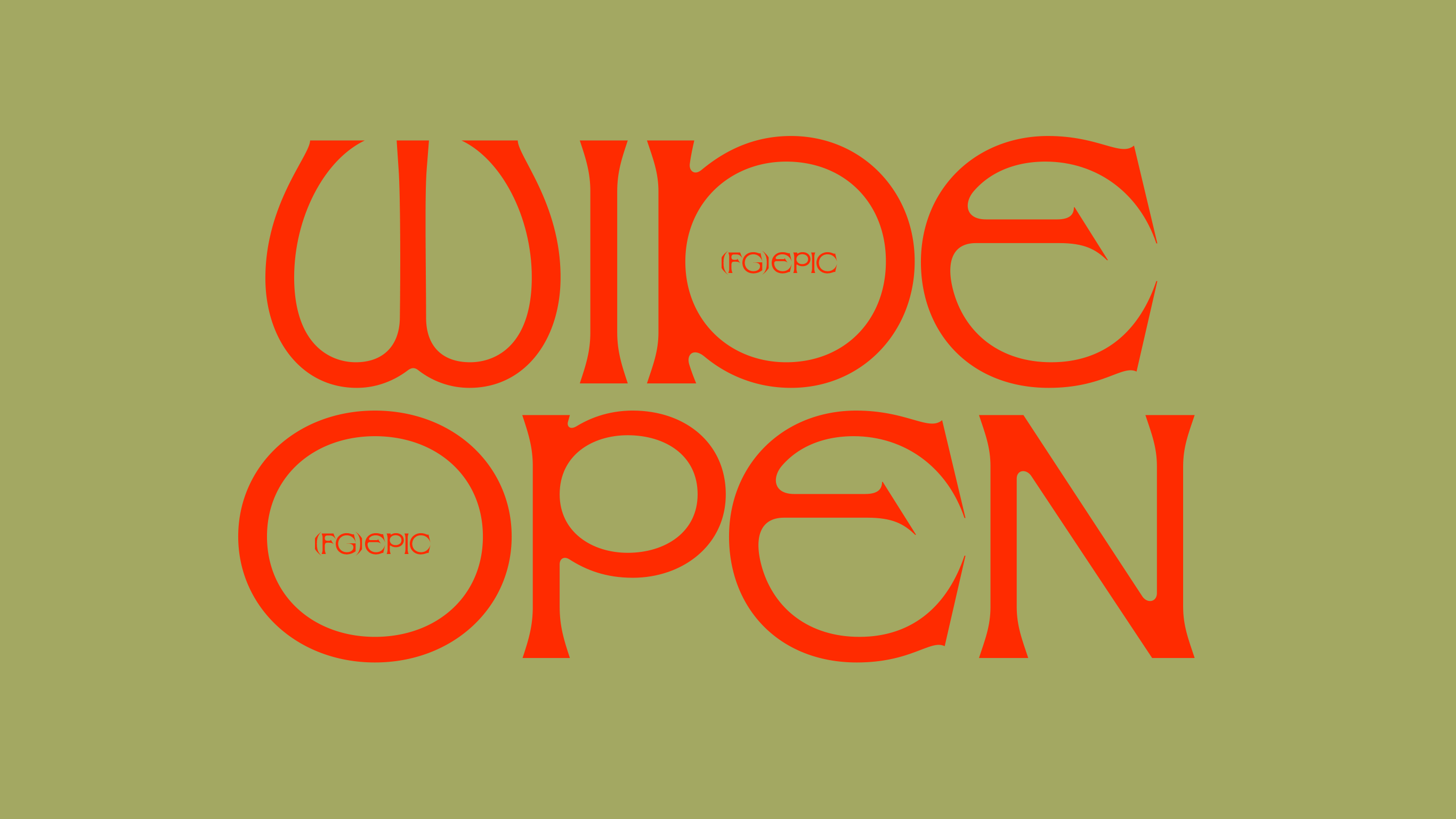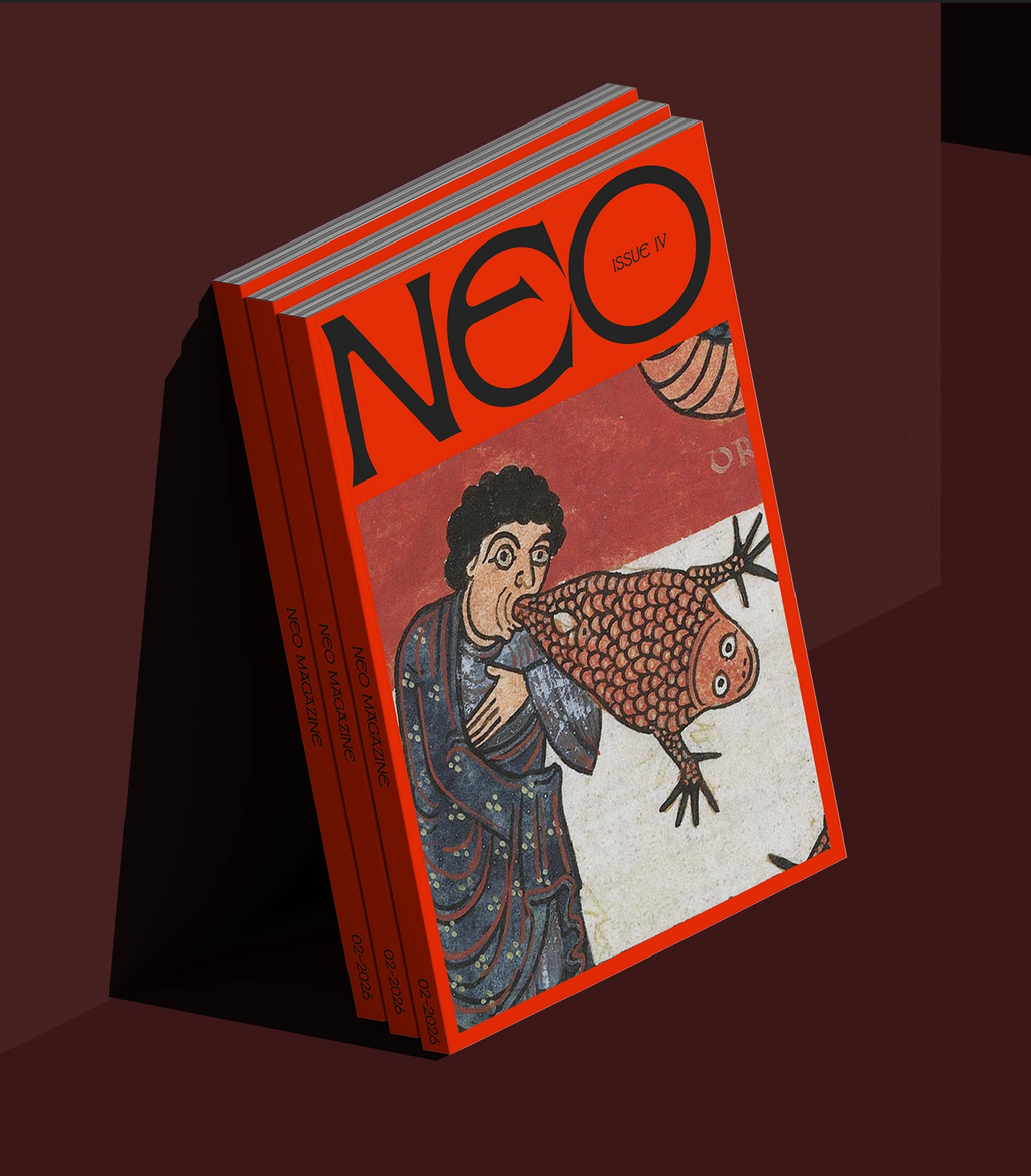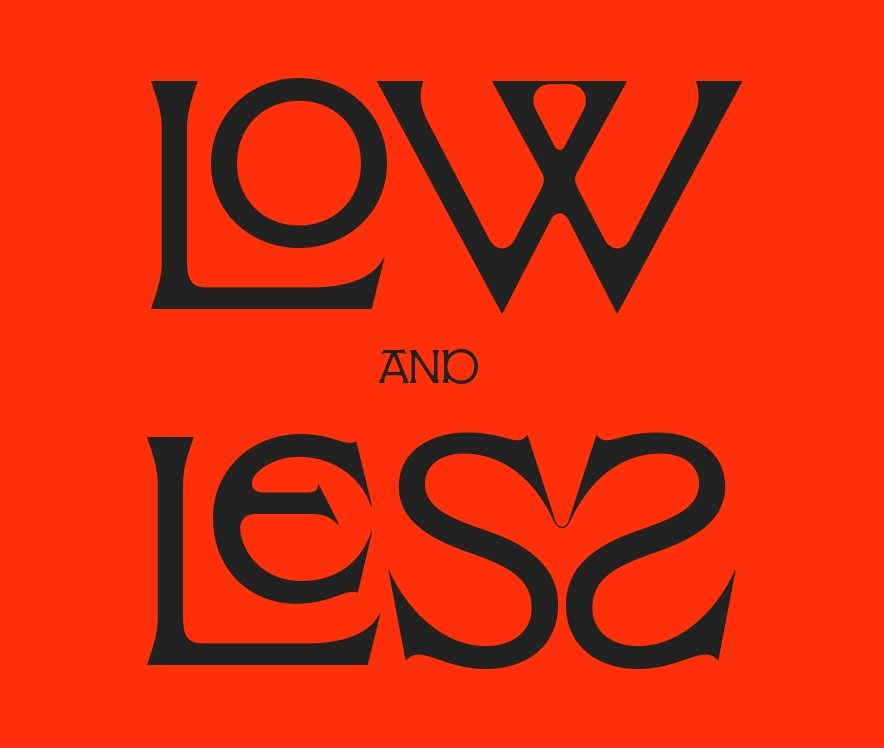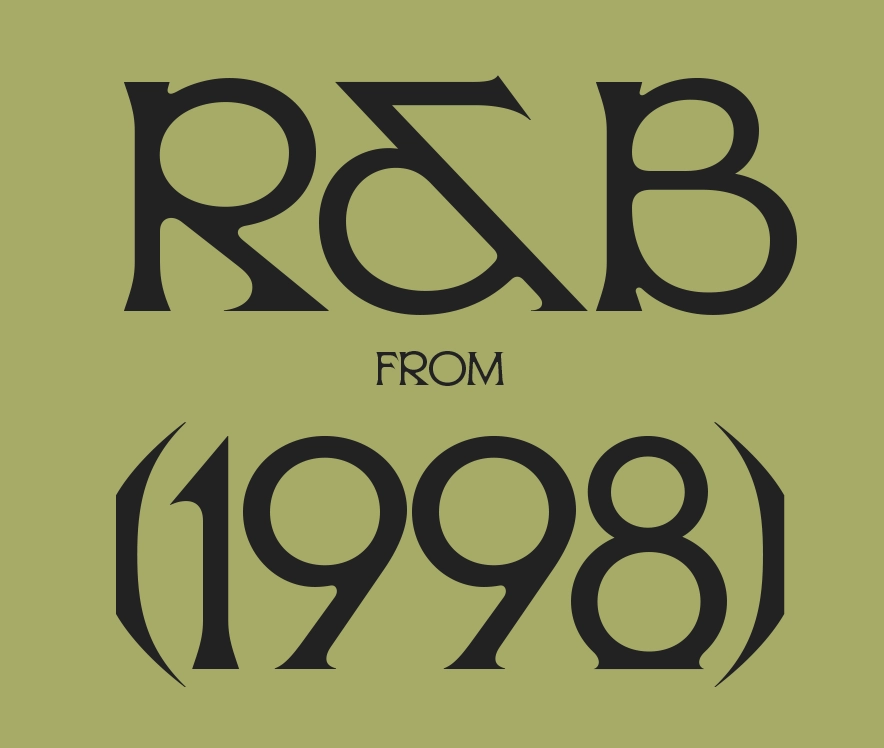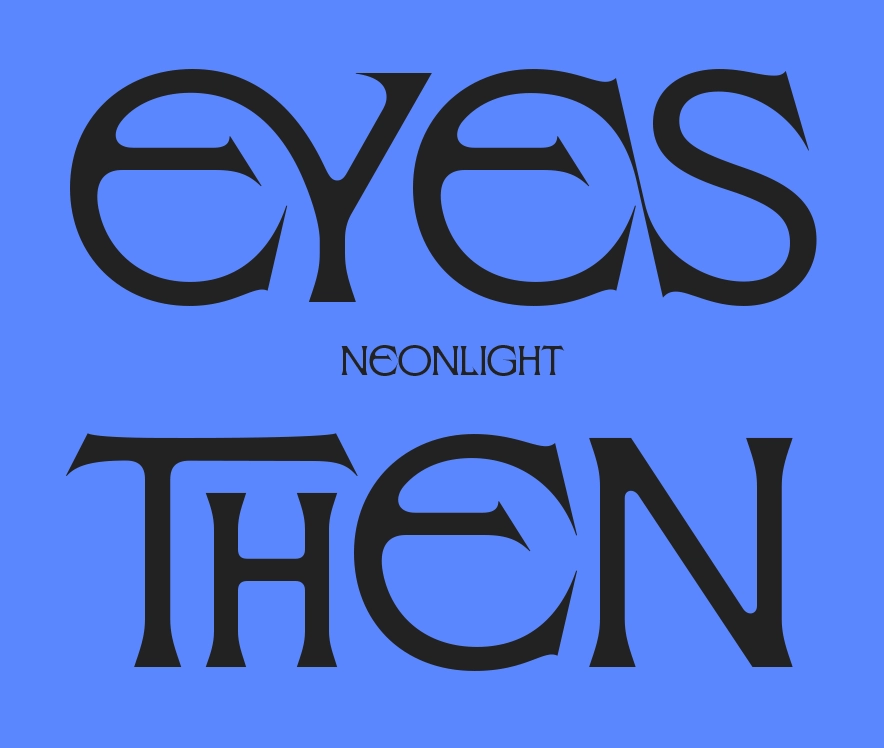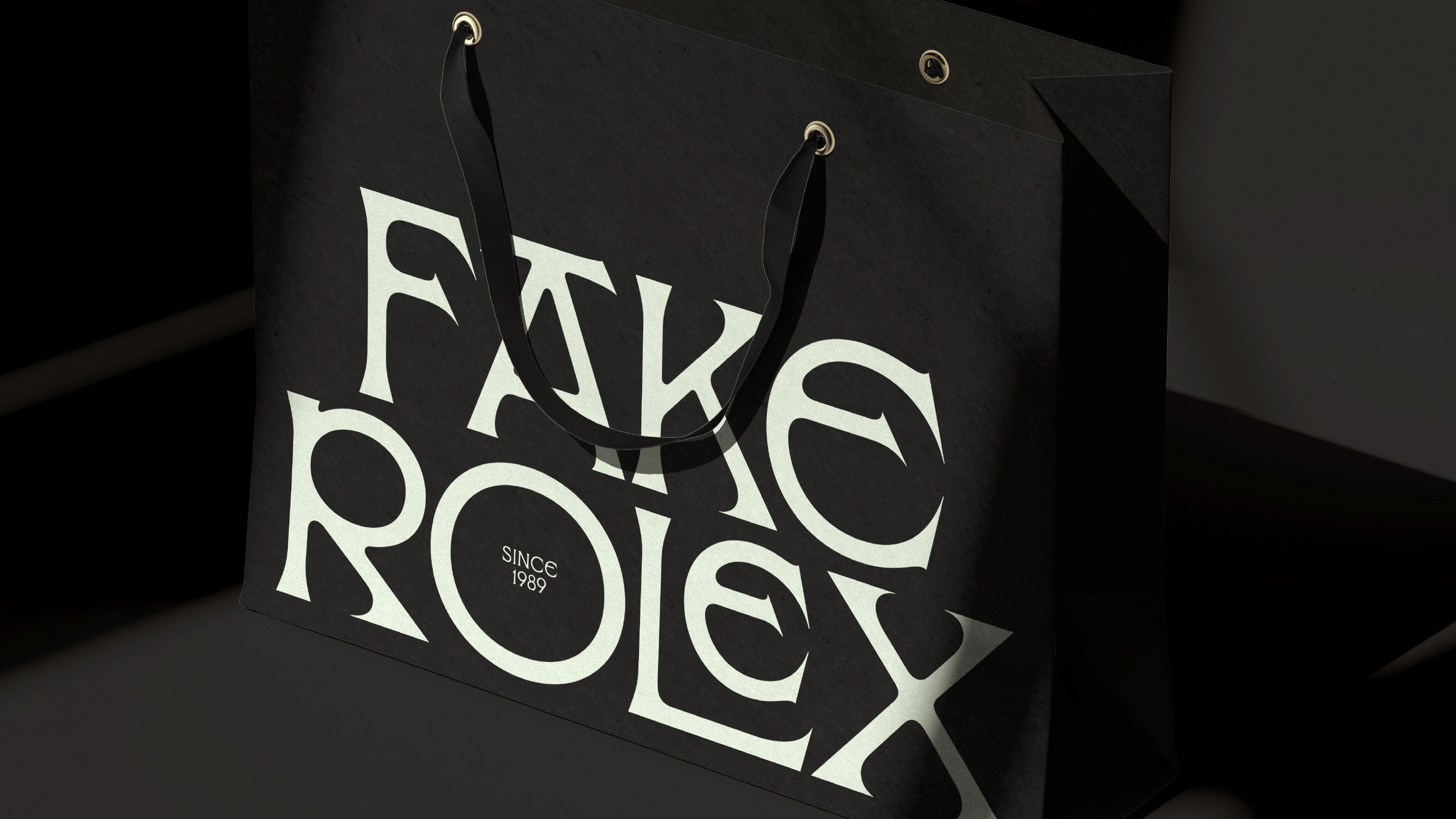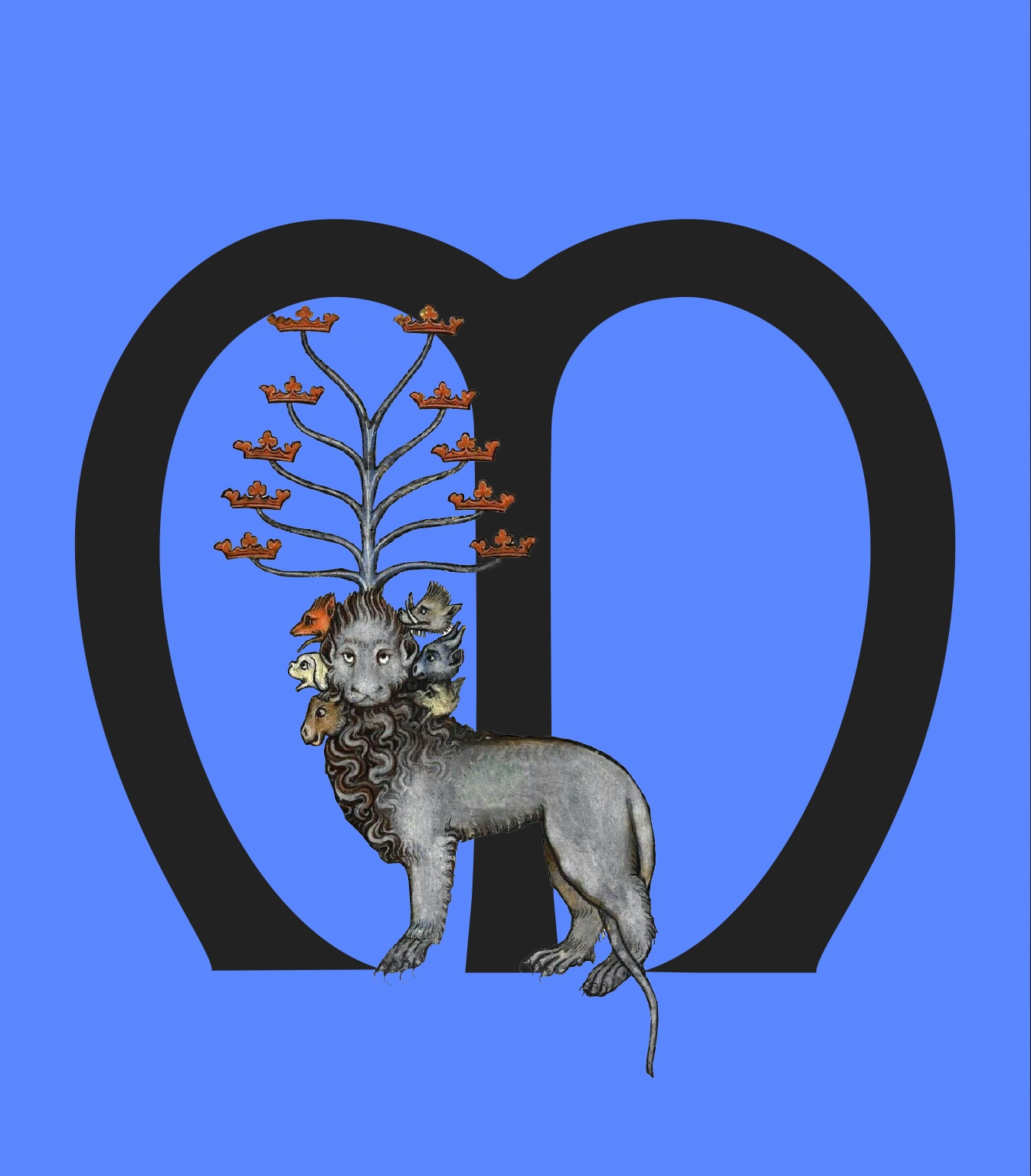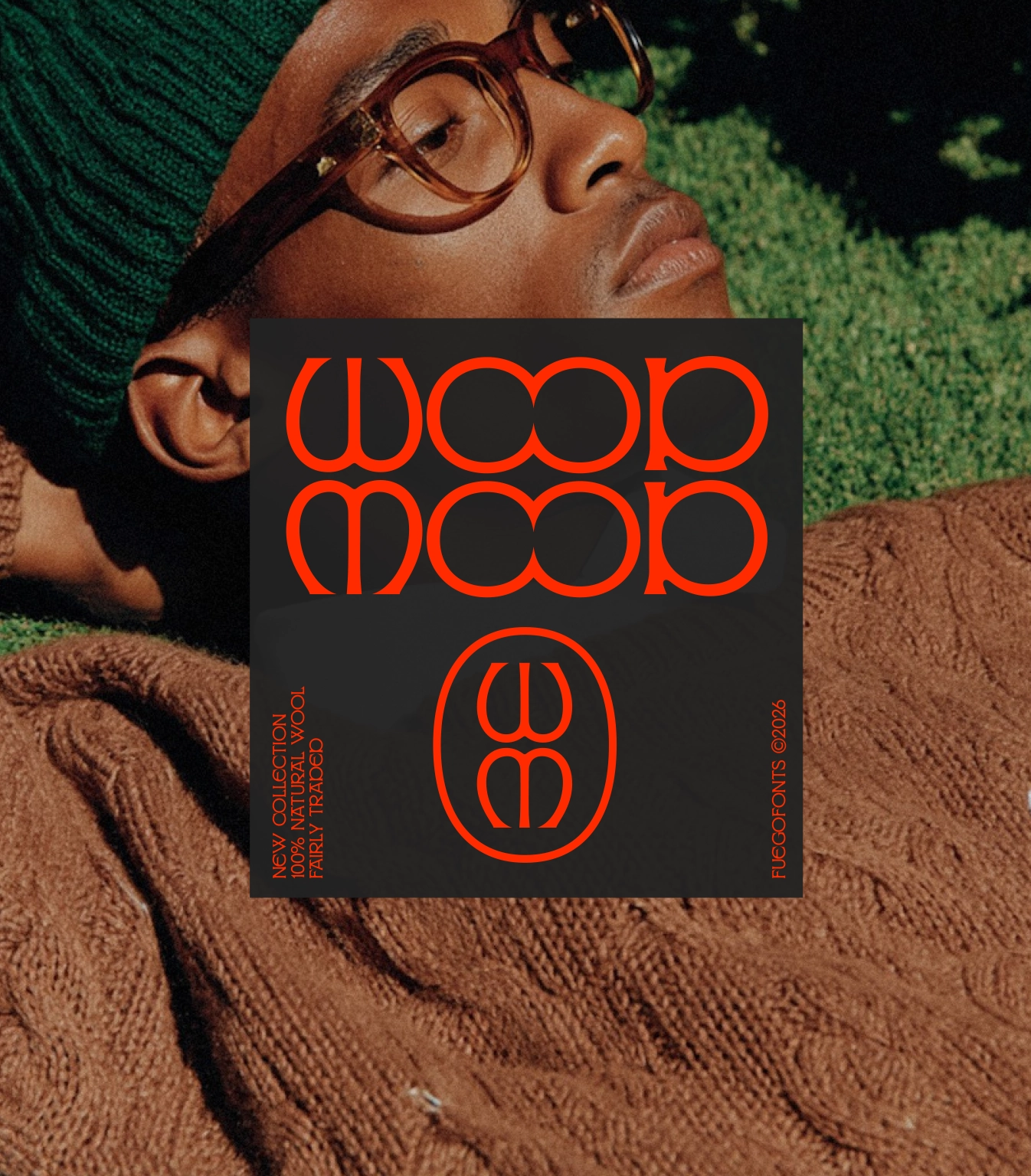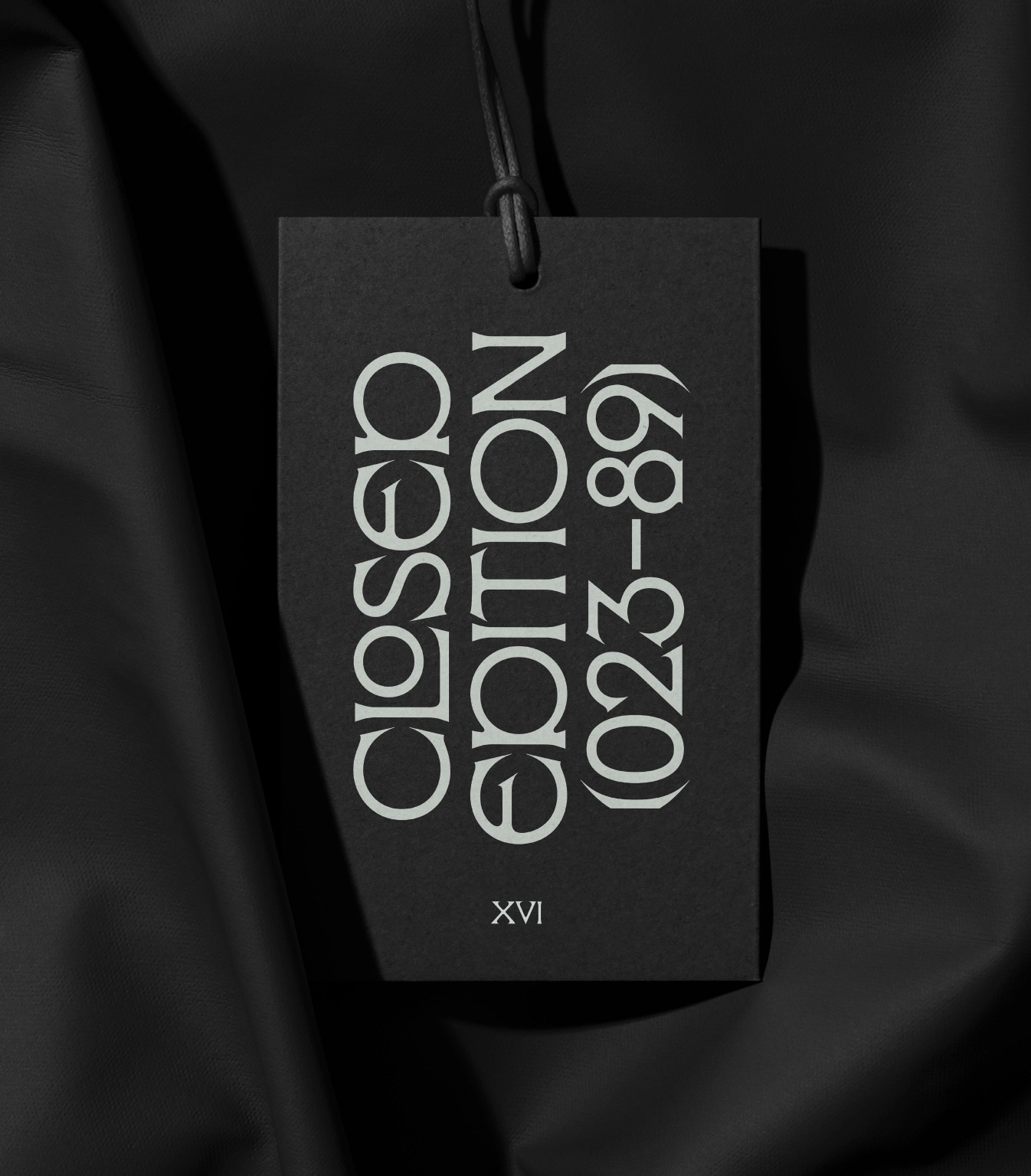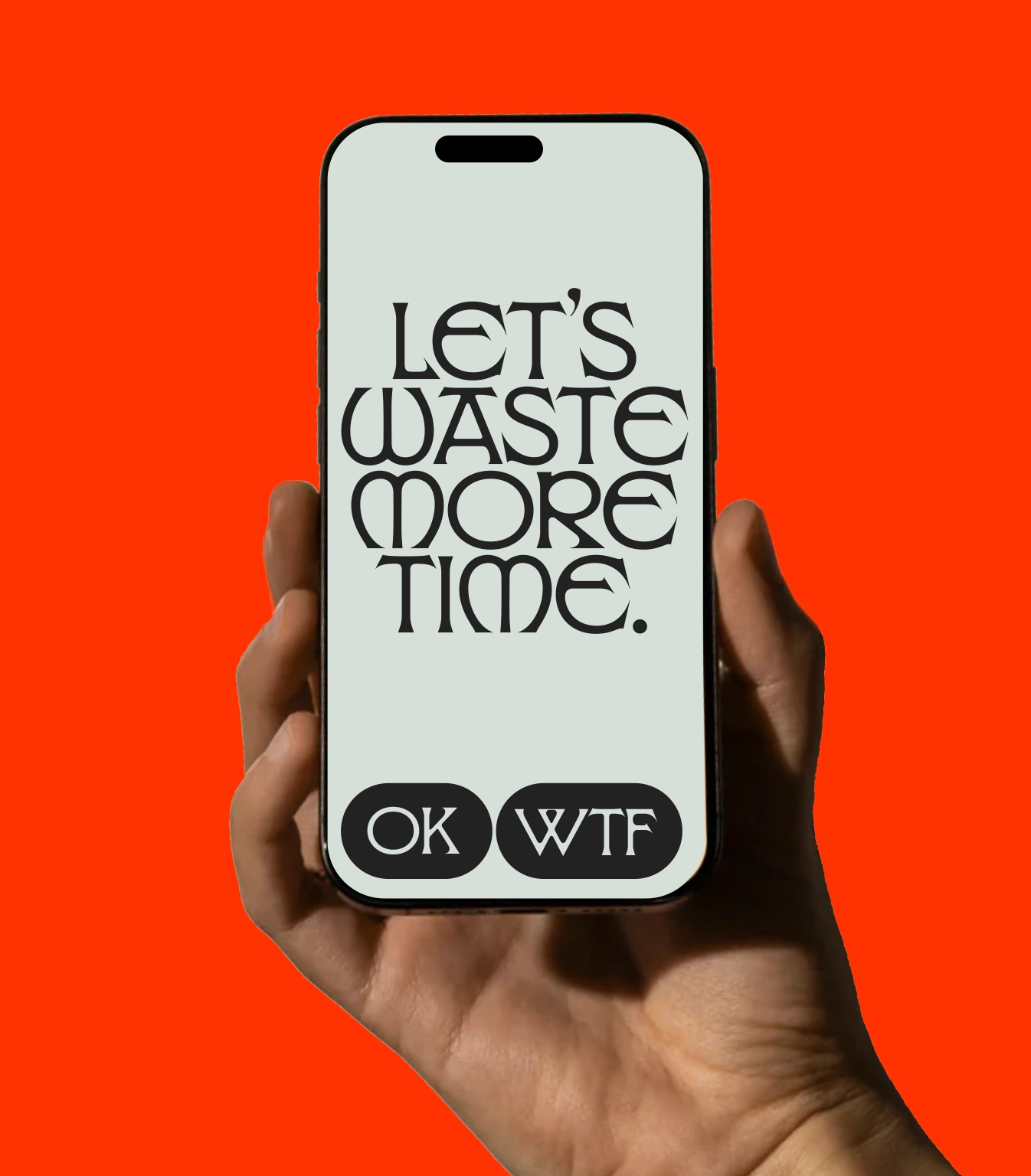
Epic
EPIC is a cutting-edge display typeface that occupies the liminal space between ancient history and future aesthetics. By synthesizing the stately proportions of Capitalis Monumentalis and the fluid rhythm of Medieval Uncial with rigid geometric structures, EPIC creates a visual dialogue across centuries. The typeface thrives on atmospheric tension: the grace of a rounded curve meeting the aggression of a “spiky,” hyper-constructed terminal.